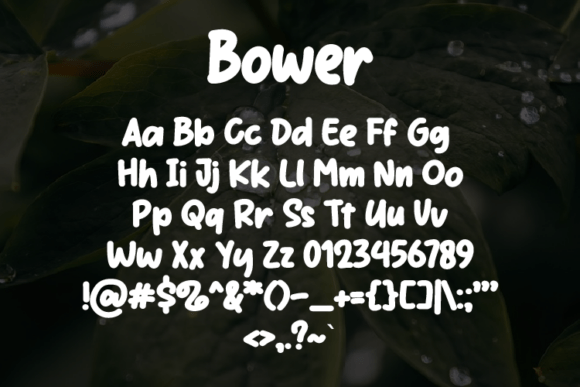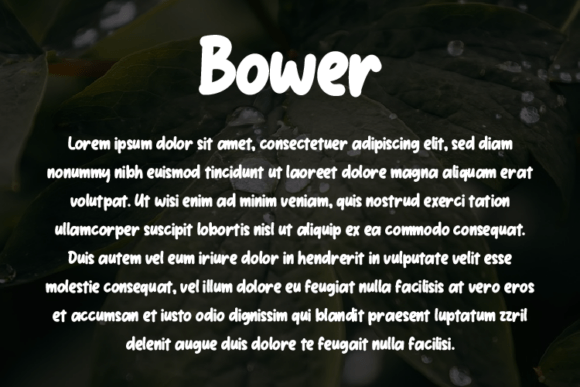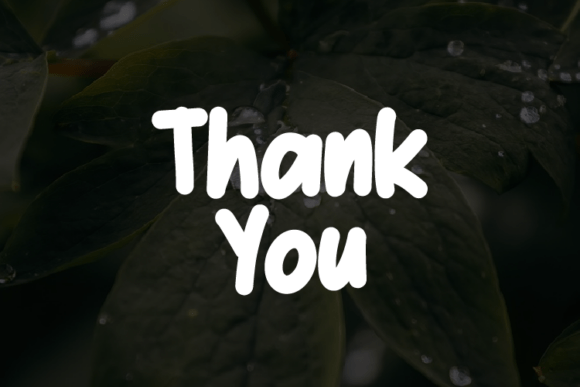
The Bower Font: A Designer’s Dream Come True
I’ll never forget the frustration I felt while working on a project, searching for the perfect font that would elevate my design and communicate the right tone. My client wanted a modern, elegant look that would stand out across various media, from digital platforms to print materials. That’s when I discovered the Bower Font, a game-changer in the world of typography.
What is Bower Font?
Bower is a modern and elegant typeface designed for flexibility and excellent readability across a wide range of media. With its .otf (OpenType Font) file format, it offers superior cross-platform compatibility, making it an ideal choice for all design software and office applications, including Adobe Creative Suite, Microsoft Office, and other design software.
- ✨ Exceptional Readability: Bower’s clean lines and balanced design make it easy to read, even at small font sizes.
- 💡 OpenType Features: Bower supports a range of OpenType features, including glyphs, stylistic alternates, and more.
While Bower is an excellent font, there are a few minor quirks to be aware of:
The Designer Inspiration Behind Bower
Bower’s design is inspired by the works of renowned typographers and designers, who sought to create a modern and elegant typeface that would excel in various media. While the actual designer behind Bower remains anonymous, their passion for typography and commitment to quality are evident in every detail of the font.
| Is Bower Font suitable for body text? | Yes, Bower Font is designed for excellent readability and can be used for body text, headings, and more. |
| Does Bower Font support OpenType features? | Yes, Bower Font supports a range of OpenType features, including glyphs, stylistic alternates, and more. |